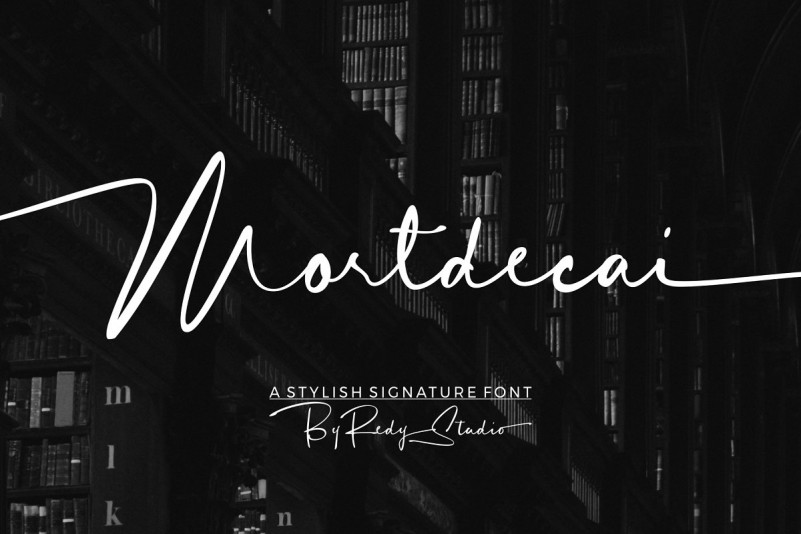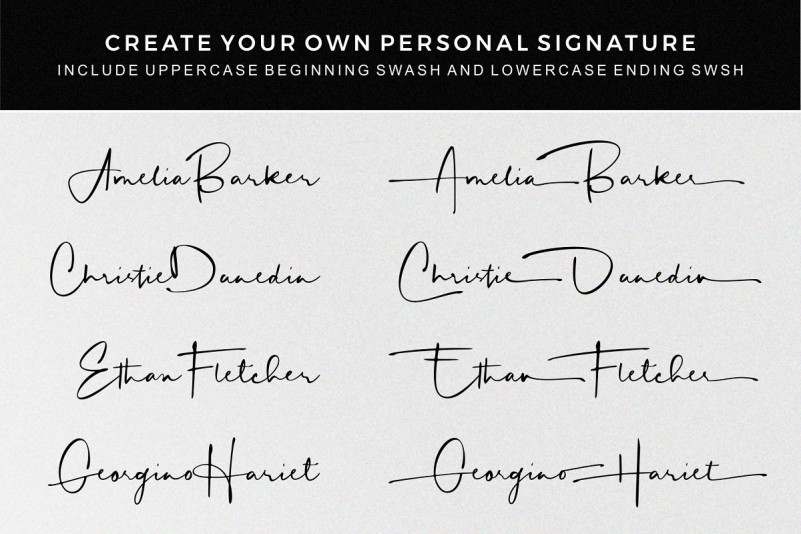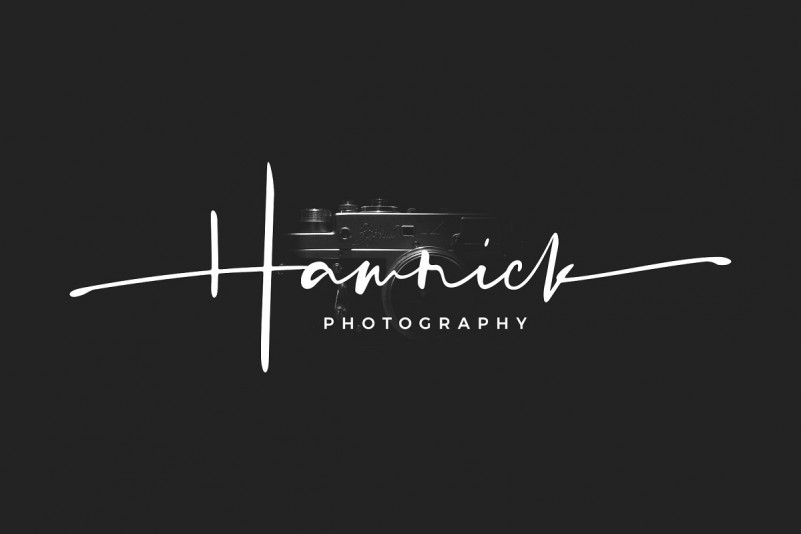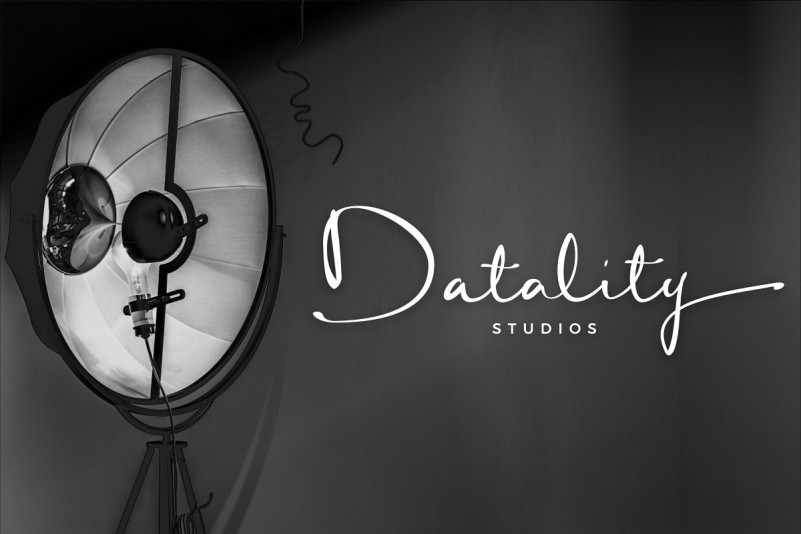
Mortdecai Signature Font
Mortdecai Signature Font – A Signature font that can meet your needs to make a handwriting that has strong characteristics. inspired by monoline signature letters. Mortdecai Font designed and shared by RedyStudio. It’s a signature font that is perfect for your personal brand. Mortdecai Signature comes with opentype features such as stylistic alternates,uppercase beginning & lowercase ending swsh, stylish ligatures. We keep this font to looks elegant, expressive, readable, stylish, catchy and easy to use.